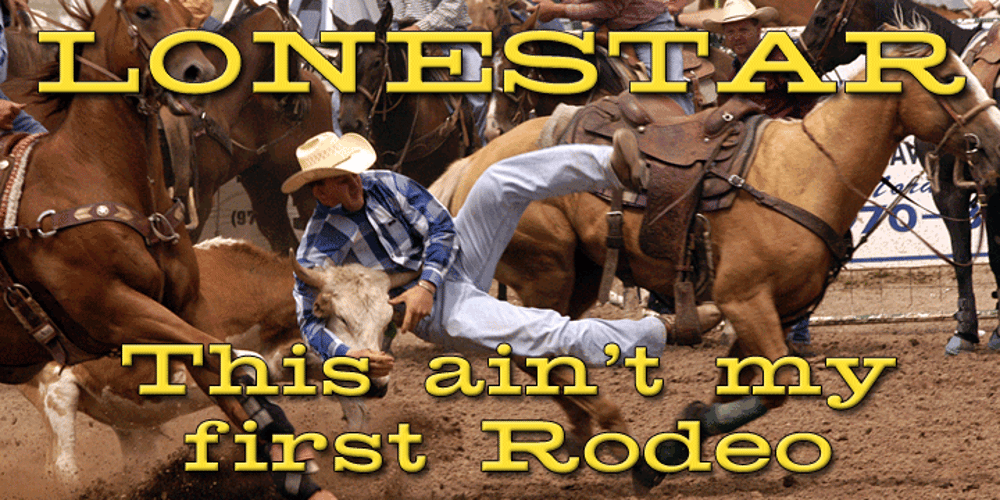
Lonestar
Lonestar font
Lonestar Font Family was designed by Michael Hagemann and published by FontMesa. Lonestar contains 1 styles and family package options. Lonestar is a revival of the old classic slab serif font named Hellenic which was very popular in the middle to late 1800s.